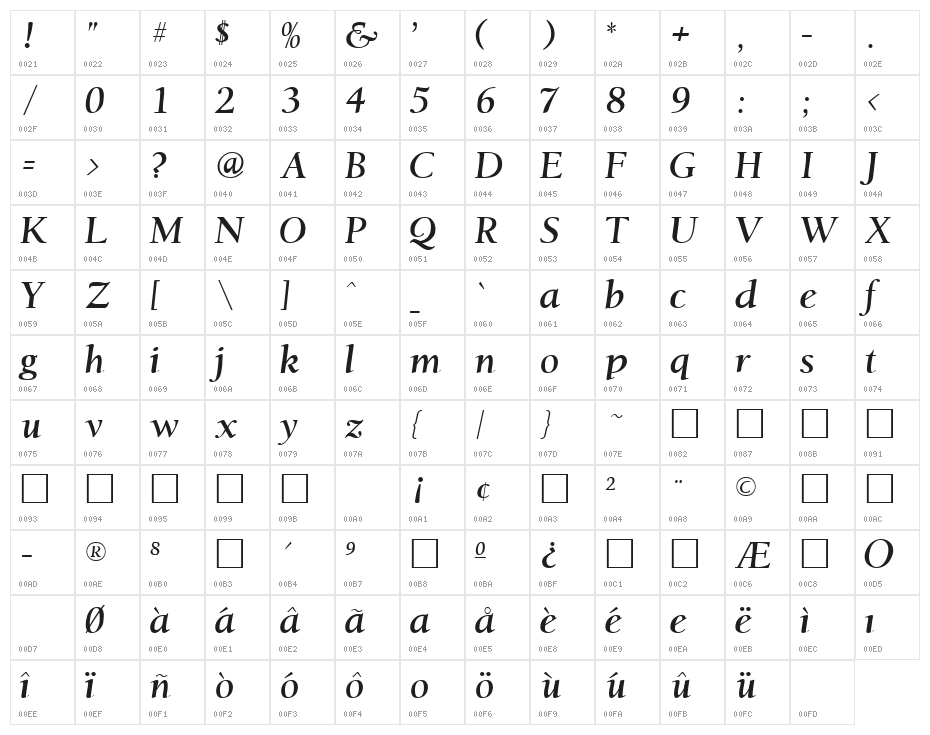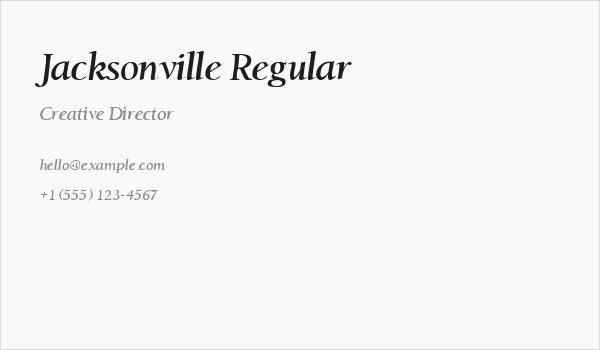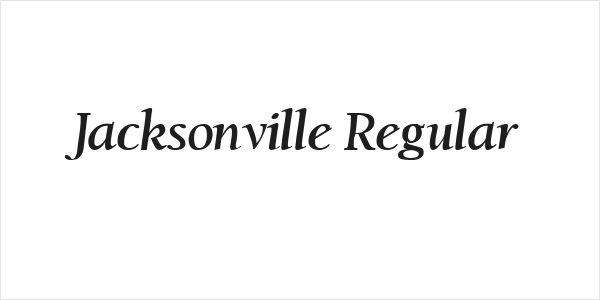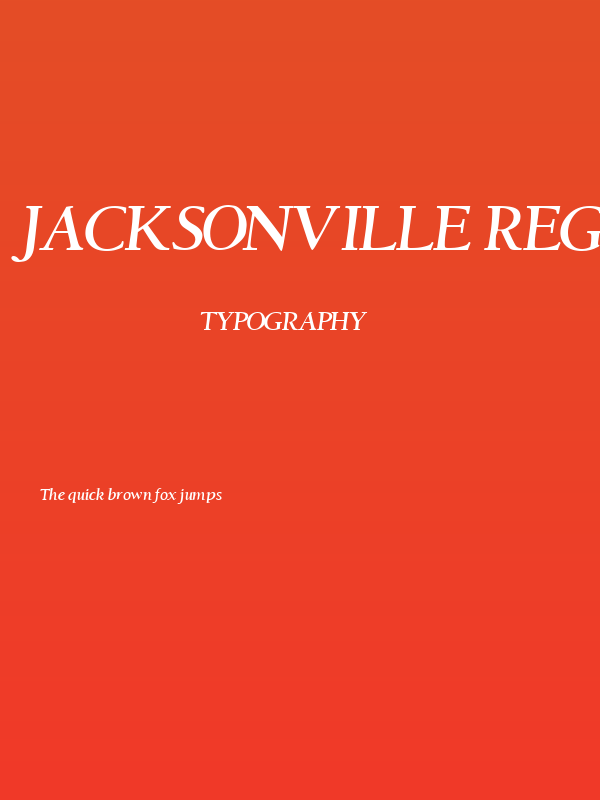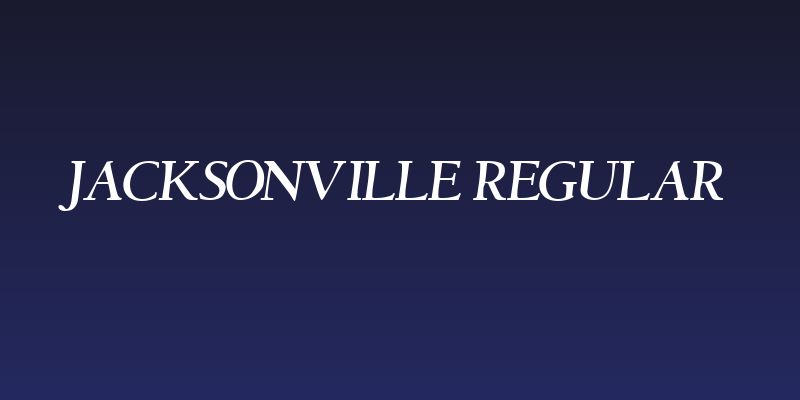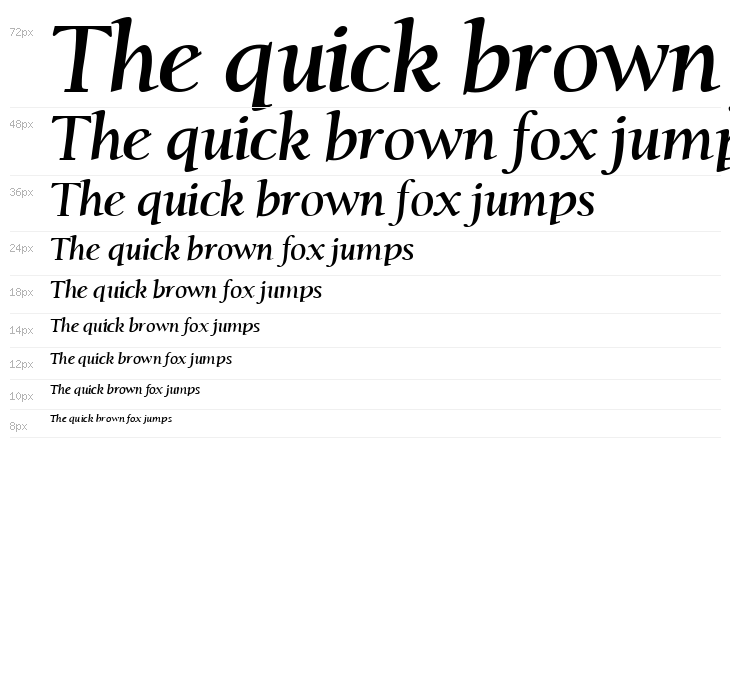
Jacksonville Regular Font
Jacksonville Regular Description
This font features a classic serif style with elegant, flowing lines and a slight italic slant, giving it a sophisticated and timeless appearance. The uppercase letters are tall and stately, while the lowercase letters maintain a consistent flow with gentle curves. The numerals are well-proportioned, complementing the overall aesthetic. Special characters are designed with the same attention to detail, ensuring a cohesive look across all elements. The font's design is suitable for conveying elegance and tradition, making it ideal for formal documents, invitations, and branding that requires a touch of class.
| Proposed Projects | Ideal for wedding invitations, formal documents, luxury branding, and editorial design. |